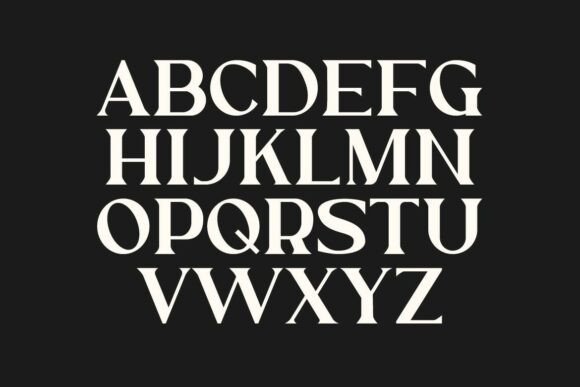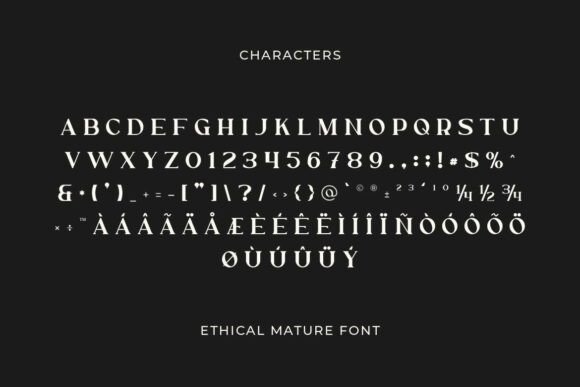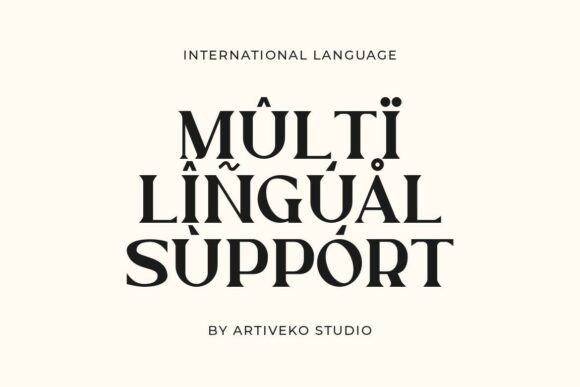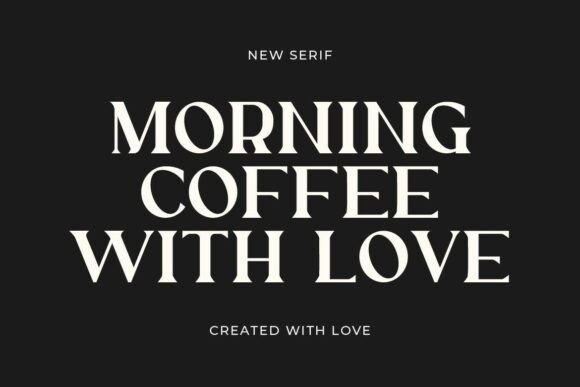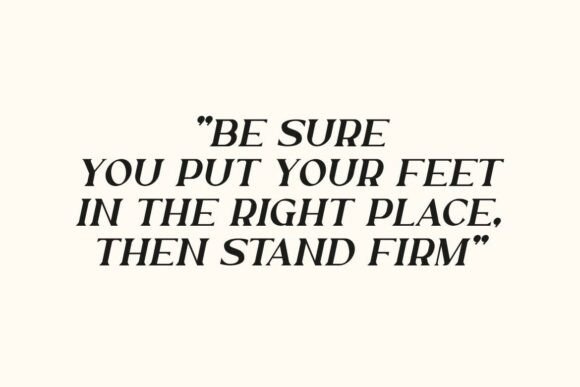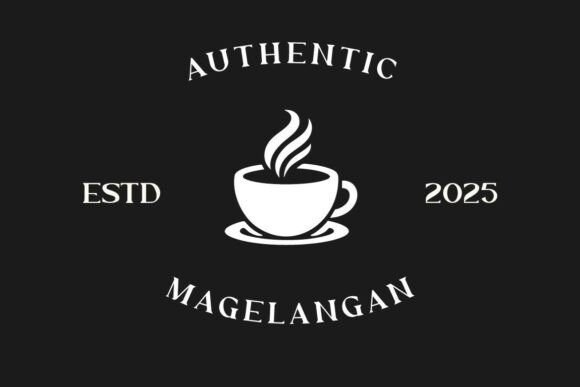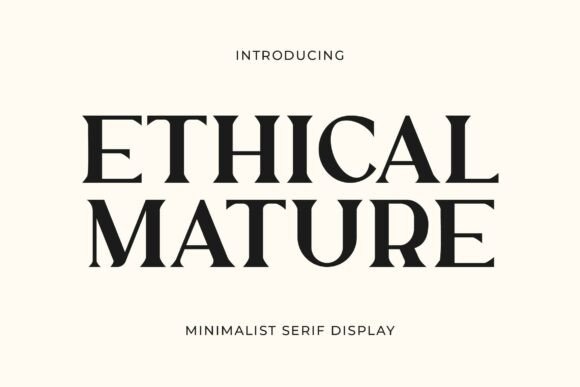
Introducing Ethical Mature Font: Elevate Your Designs with Timeless Elegance
In the world of typography, a well-crafted font can make all the difference in creating a lasting impression. For designers and crafters seeking to infuse their projects with sophistication, professionalism, and enduring elegance, the Ethical Mature Font is an exceptional choice. This refined serif typeface is designed to bring a touch of luxury and authority to any visual identity, editorial design, book cover, wedding stationery, upscale packaging, or premium logo application.
The Distinctive Characteristics of Ethical Mature Font
The Ethical Mature Font boasts high-contrast strokes, sharp, confident serifs, and carefully balanced proportions, which collectively give it a distinctive presence on the page. This masterful blend of classic and contemporary elements results in a timeless aesthetic that exudes refinement and poise. The font’s exceptional legibility and clarity make it an ideal choice for body text, headlines, and titles, ensuring that your message is conveyed with precision and style.
Crafting a Timeless Aesthetic with Ethical Mature Font
Whether you’re working on a mature visual identity, editorial design, book cover, wedding stationery, upscale packaging, or premium logo application, the Ethical Mature Font is exceptionally well-suited to bring clarity and character to your project. Its versatility allows it to seamlessly integrate into various design contexts, from elegant and sophisticated to refined and luxurious. With this font, you can create a cohesive visual narrative that resonates with your audience and leaves a lasting impression.
Key Features and Benefits of Ethical Mature Font
• High-contrast strokes: Add a touch of sophistication and elegance to your designs.
• Sharp, confident serifs: Provide a sense of refinement and poise.
• Carefully balanced proportions: Ensure exceptional legibility and clarity.
• Timeless aesthetic: Evokes a sense of luxury and authority.
• Versatility: Suitable for various design applications, including body text, headlines, and titles.
Design Applications for Ethical Mature Font
The Ethical Mature Font is an excellent choice for a wide range of design projects, including:
• Mature visual identities: Create a lasting impression with a sophisticated and refined brand image.
• Editorial design: Elevate your publications with a font that exudes elegance and refinement.
• Book covers: Create a captivating and eye-catching cover that stands out on bookshelves.
• Wedding stationery: Add a touch of luxury and romance to your wedding invitations and stationery.
• Upscale packaging: Create premium packaging that reflects the high quality of your products.
• Premium logo applications: Develop a strong brand identity with a font that conveys authority and sophistication.
Font Name Ethical Mature  Font
Author Artiveko
In conclusion, the Ethical Mature Font is an exceptional choice for designers and crafters seeking to infuse their projects with timeless elegance, sophistication, and professionalism. With its distinctive characteristics, versatility, and wide range of design applications, this refined serif typeface is sure to elevate your designs and leave a lasting impression on your audience.
Whether you’re working on a high-end brand identity, editorial design, book cover, wedding stationery, upscale packaging, or premium logo application, the Ethical Mature Font is an excellent choice. Its exceptional legibility, clarity, and timeless aesthetic make it an ideal font for any project that calls for a luxurious and authoritative visual narrative.